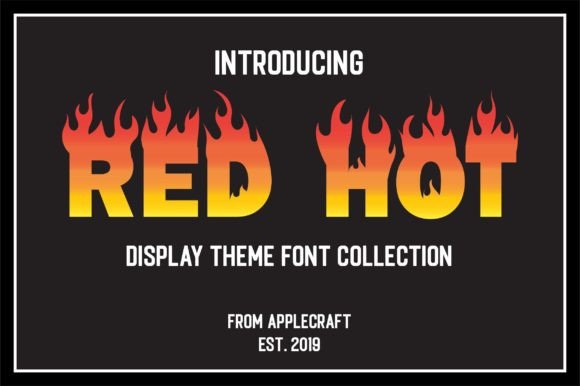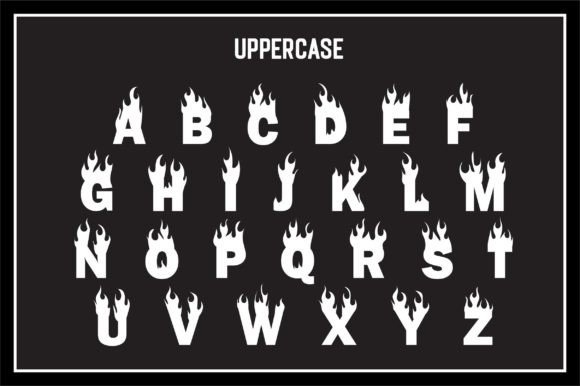
Red Hot Font
Red Hot is a decorative font inspired by fire, perfect for quotes, shirt designs, websites, branding, children’s designs, SVG designs, blogs, logos, invitations, and more!